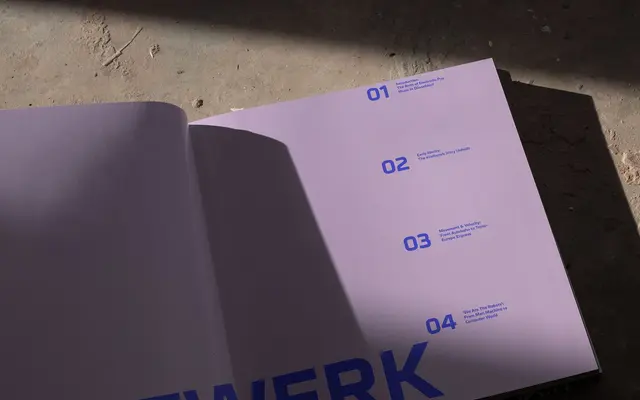
A geometric sans built on a grid structure with softened corners, available in seven weights with obliques.
Constructed on a strict grid yet tempered by smooth corners, Metral sits between cool precision and everyday approachability. The family runs to seven weights, each with an oblique, and includes over 650 characters per style along with OpenType features covering alternate letterforms, fractions and tabular figures. Language support extends across Western, Southern and Central European Latin scripts, and version 2.0 brought improved OpenType implementation throughout.
Explicitly described as geometric sans-serif, built on a grid structure with smooth corners softening the geometry into a warmer, more approachable form.